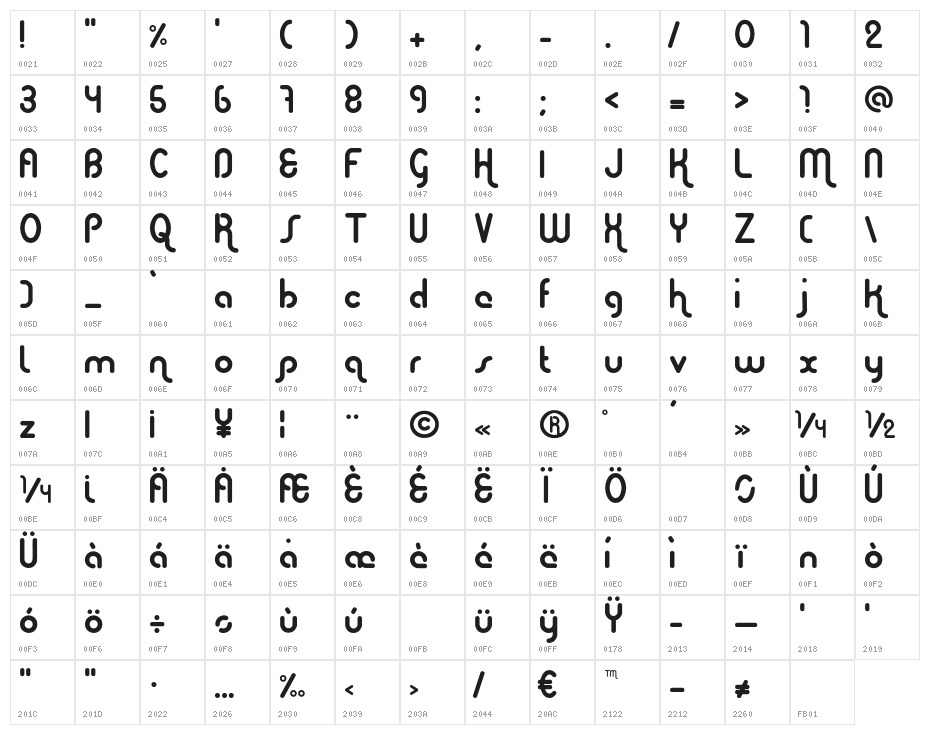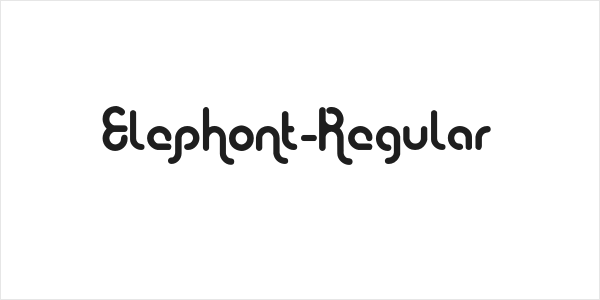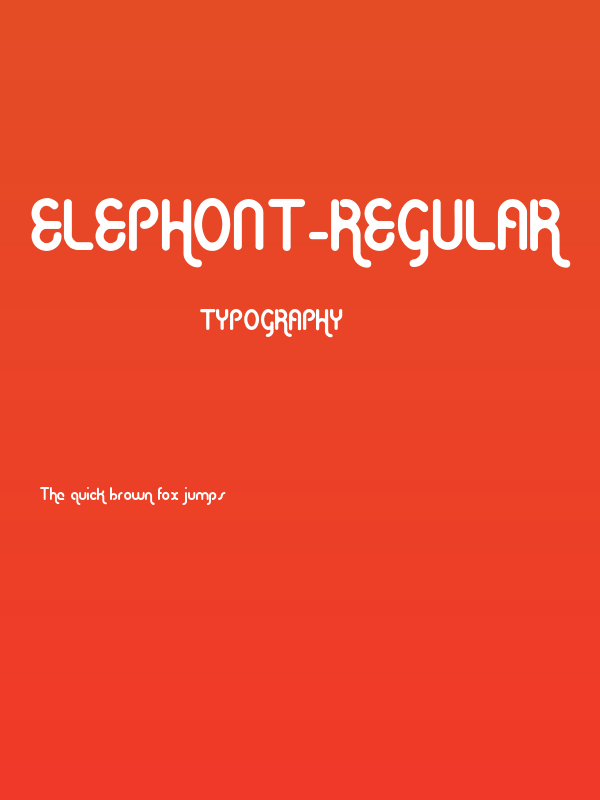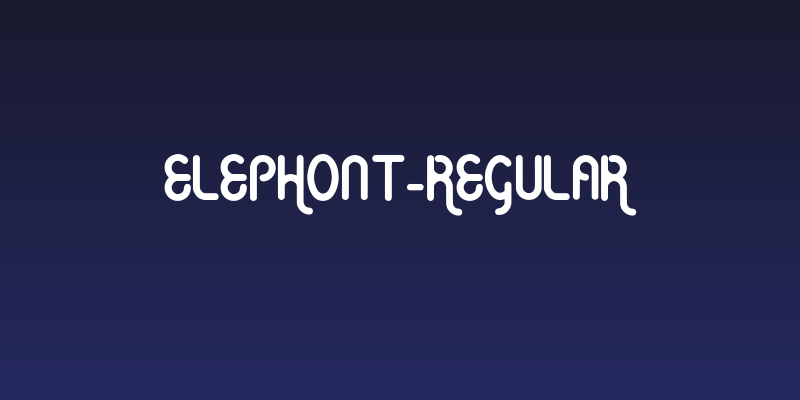
Elephont-Regular Font
Elephont-Regular Description
This font features a unique and playful design with rounded edges and a bold presence. The characters are evenly spaced, providing a clean and modern look. The uppercase letters have a consistent height, while the lowercase letters maintain a uniform baseline, contributing to a harmonious appearance. The numerals are distinct and easy to read, matching the style of the alphabetic characters. Special characters are designed with the same rounded and bold characteristics, ensuring consistency throughout the font. This font is well-suited for projects that require a fun and approachable aesthetic.
| Use Case | Logos, Headlines, Posters |
| Proposed Projects | Ideal for children's books, playful branding, posters, and creative digital content. |